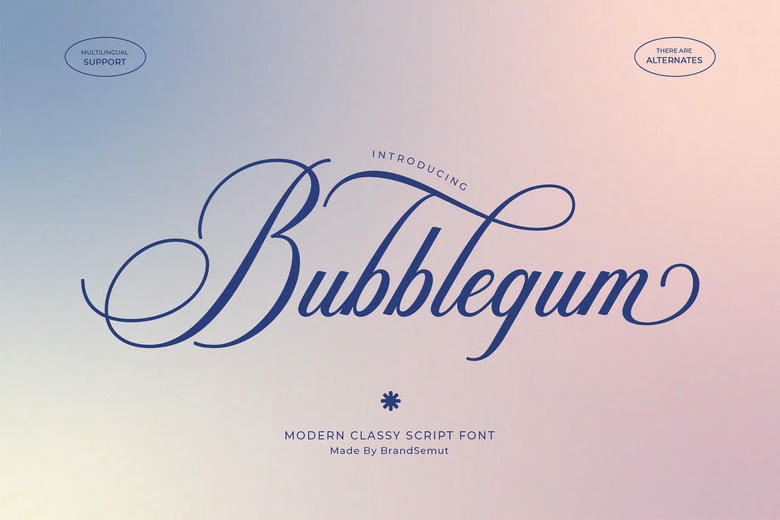
Bubblegum Font
Bubblegum is a contemporary elegant script font, which was created keeping in mind the elegant, sophisticated and the beauty that will never fade away. Bubblegum has flowing curves, sleek swashes and polished strokes of calligraphy, which make it ideal in giving a project a luxurious hand written look.
This flexible font is a combination of the skill of traditional calligraphy and a modern design, so it can be used in branding, editorial design, wedding stationery, packaging, and digital content. Bubblegum gives any design a high end and professional appearance with its high readability and graceful letterforms.
Bubblegum Calligraphy Script Font